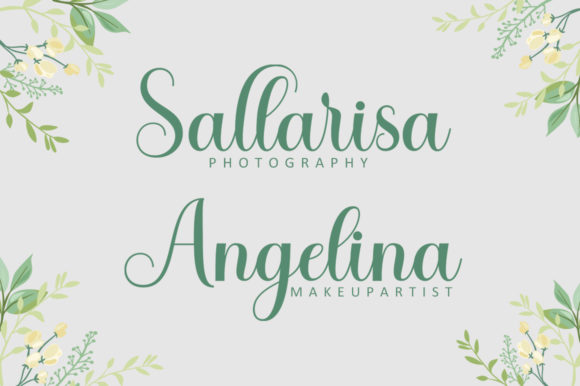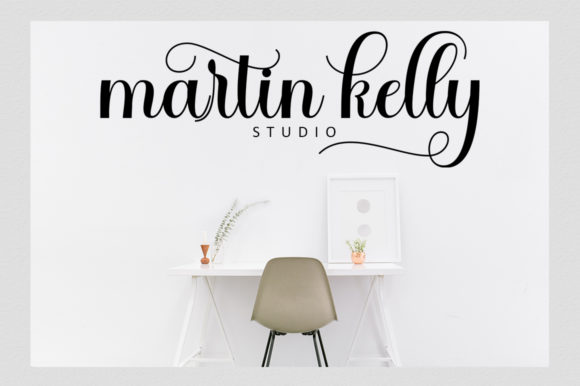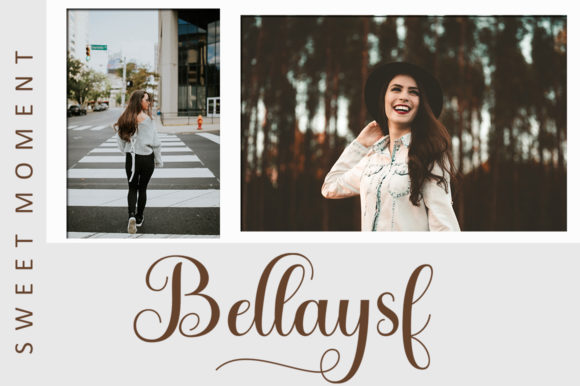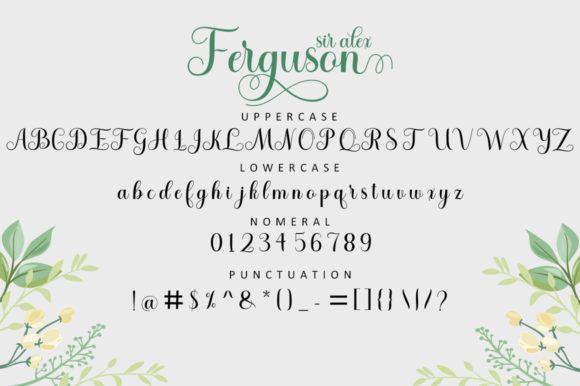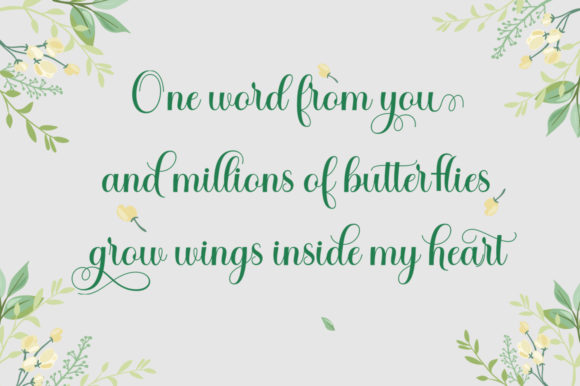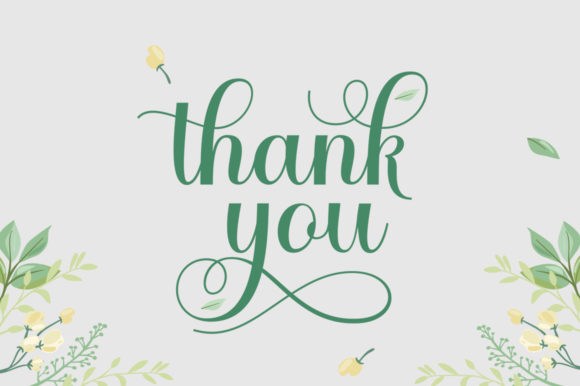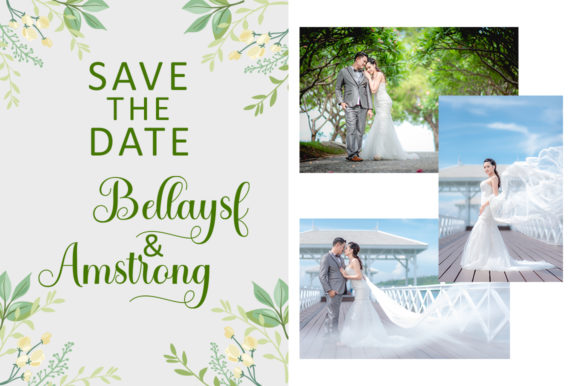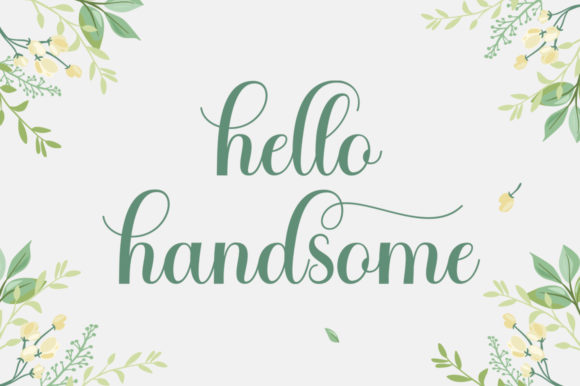
About Sir Alex Ferguson Font
Sir Alex Ferguson is an exquisite script font that possesses remarkable adaptability. With its wide spectrum of applications, ranging from greeting cards to headlines, this font is sure to infuse a romantic ambiance into your next project. The graceful and flowing characters of Sir Alex Ferguson make it a versatile choice for various design purposes.
This font’s elegant and sophisticated appearance adds a touch of refinement to any design it graces. Whether you’re creating a logo, establishing a brand identity, or crafting memorable quotes, Sir Alex Ferguson’s unique and beautiful letterforms will bring your creations to life. Each letter is meticulously crafted with precision, ensuring that every aspect of your design exudes a sense of allure and charm.
One of the advantages of Sir Alex Ferguson is its PUA (Private Use Area) encoding. This means that you can effortlessly access all the delightful glyphs and swashes that accompany this font. These additional design elements provide you with endless possibilities for customizing and embellishing your typography. Whether you want to add ornamental flourishes, stylish swashes, or decorative touches, the PUA-encoded glyphs are easily accessible, allowing you to create truly stunning and personalized designs.
The versatility of Sir Alex Ferguson extends beyond its visual appeal. Its adaptability allows it to evoke different emotions and atmospheres depending on the context. From creating elegant wedding invitations to designing captivating headlines, this font possesses the ability to convey romance, sophistication, and a touch of nostalgia. Its timeless charm ensures that it will remain a beloved choice for a wide range of design projects.
In conclusion, Sir Alex Ferguson is a captivating script font that offers versatility, elegance, and a touch of romance. With its wide range of applications and PUA-encoded features, this font empowers you to create breathtaking designs that leave a lasting impression. Whether you’re designing for personal or professional projects, Sir Alex Ferguson is a font that will elevate your work and captivate your audience.